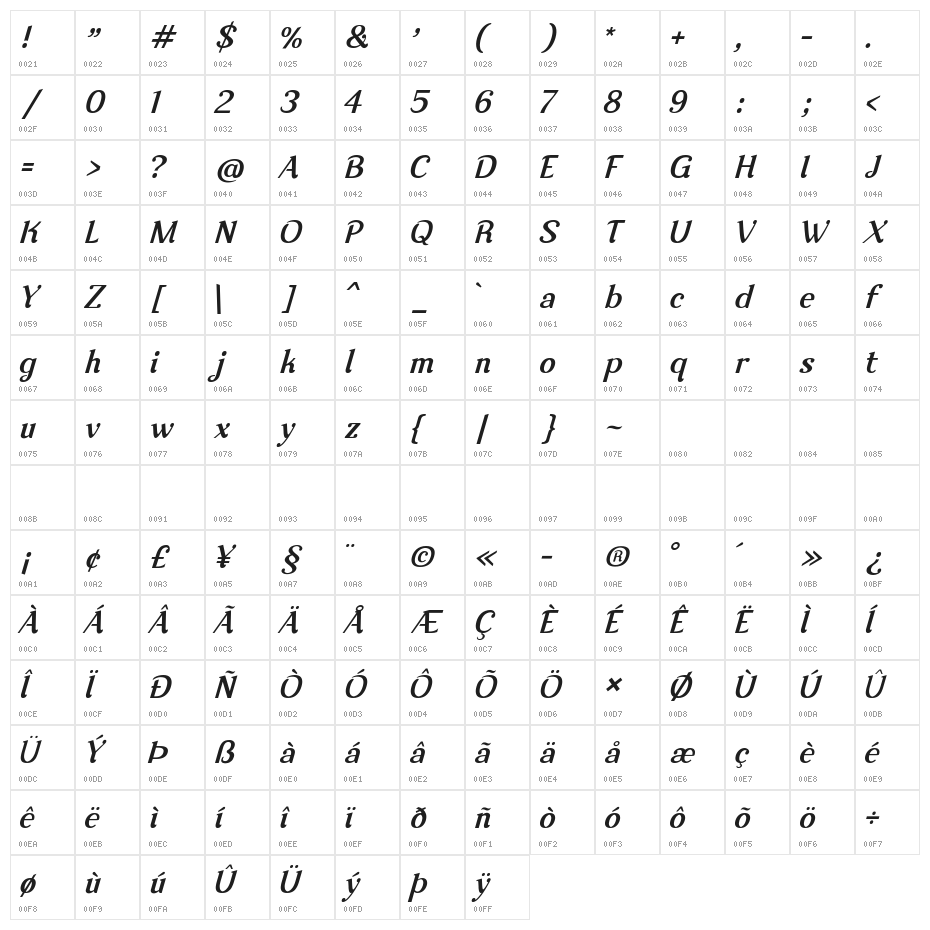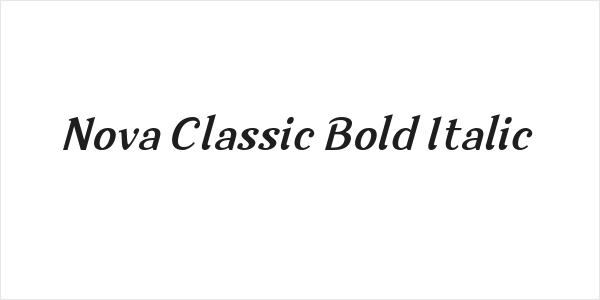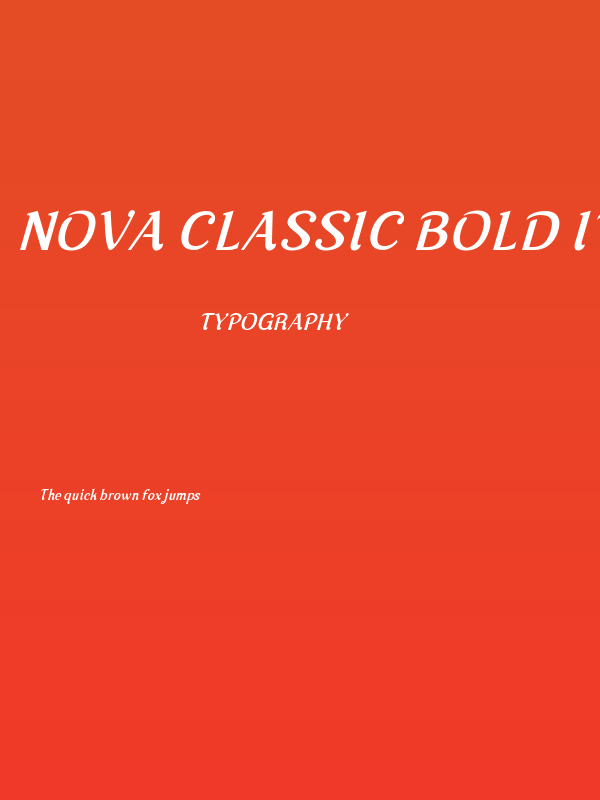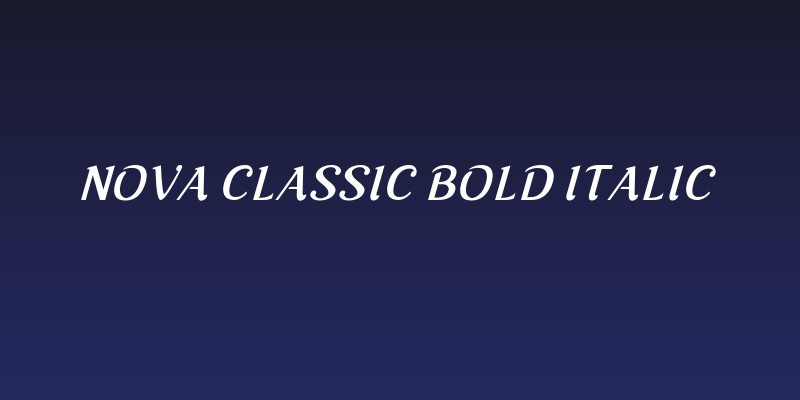
Nova Classic Bold Italic Font
Nova Classic Bold Italic Description
This font features a classic serif style with a bold and italicized appearance, giving it a strong yet elegant presence. The characters are well-defined with smooth curves and sharp serifs, providing a sense of sophistication and tradition. The uppercase letters are slightly taller than the lowercase, maintaining a balanced proportion that enhances readability. The numerals are consistent with the overall style, offering a cohesive look across all characters. The special characters are designed to complement the alphabet, ensuring versatility in various design contexts.
| Use Case | Headlines, Logos, Editorial design |
| Proposed Projects | Ideal for projects requiring a touch of elegance and tradition, such as book covers, formal invitations, branding for luxury products, and editorial design. |